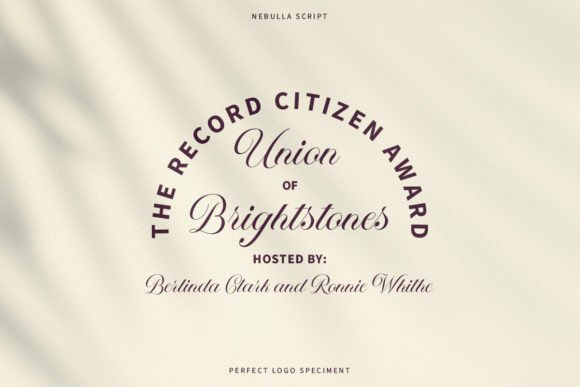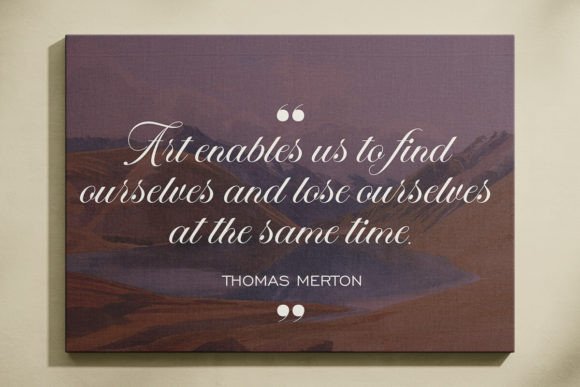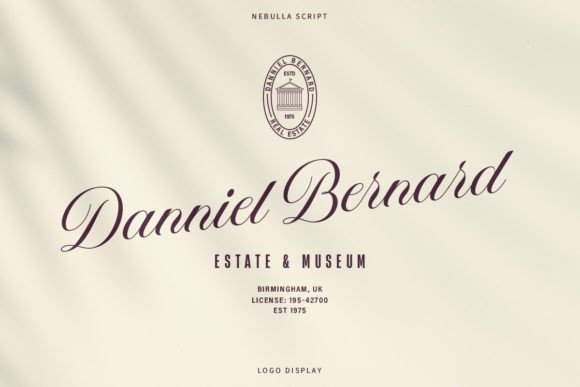
Introduction to Nebulla Font
Nebulla Script Font.
Imagine a script calligraphy font that dances delicately across the page, each stroke crafted with fluid grace and meticulous detail The letters flow seamlessly into one another, adorned with elegant swirls and subtle flourishes that add a touch of sophistication.
Key Features of Nebulla Font
Why Choose Nebulla Font?
Nebulla Font offers exceptional quality and versatility, making it a valuable addition to your design toolkit. Whether you’re creating for personal projects or commercial use, Nebulla Font delivers professional results.